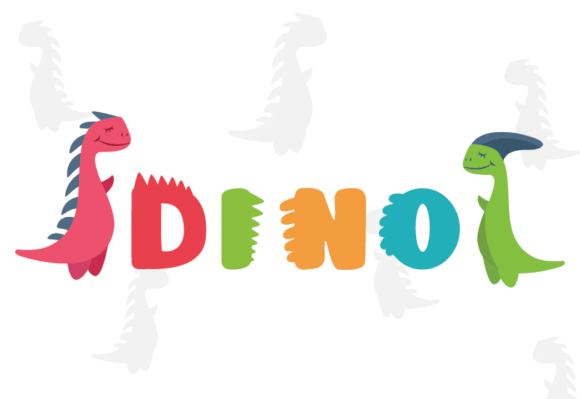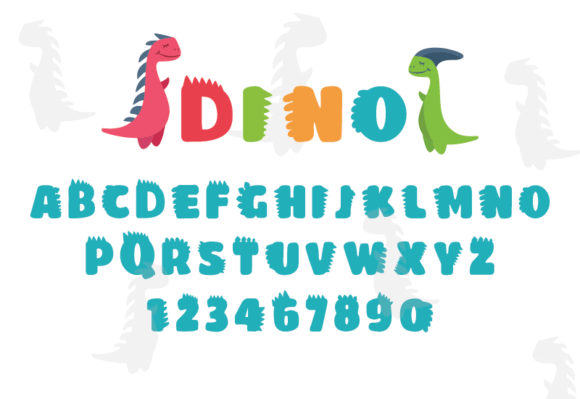
Dino Font: A Prehistoric Typographic Adventure
Imagine a world where typography meets paleontology, and the result is a playful, whimsical font that transports us to a land before time. Welcome to the world of Dino Font, a charming and imaginative creation that brings a touch of prehistoric fun to any design project. In this article, we’ll explore the unique features of Dino Font, its inspiration, and how it can add a roar of creativity to your designs.
The Inspiration Behind Dino Font
Dino Font is a typographic creation that draws inspiration from the fascinating world of dinosaurs. Each letter in the font is designed to resemble a friendly dino, with curves and angles that mimic the gentle sway of a Brachiosaurus’ neck and the formidable grace of a Stegosaurus’ plates. The font’s creator aimed to capture the essence of these prehistoric creatures and infuse it into a playful, yet elegant typographic design.
Design Features of Dino Font
One of the standout features of Dino Font is its unique letterforms, which are designed to evoke the charm of ancient fossils. The letters are crafted with spiky serifs that add a touch of edginess, reminiscent of a T-Rex’s teeth. The curves and swashes in the font are smooth and flowing, much like the gentle movements of a long-necked Sauropod. The font’s design is carefully crafted to ensure that each letter is a tiny, toothless T-Rex waiting to roar with creativity.
Using Dino Font in Design Projects
Dino Font is an excellent choice for designers and crafters looking to add a touch of whimsy and playfulness to their projects. Whether you’re working on a children’s book, a craft project, or a branding campaign, this font is sure to bring a smile to your audience’s faces. Here are a few ideas for using Dino Font in your design projects:
- Children’s Books and Educational Materials: Dino Font is perfect for children’s books, educational materials, and activity sheets. Its playful design will engage young readers and make learning fun.
- Crafting and DIY Projects: Add a touch of prehistoric charm to your crafting and DIY projects, such as signs, banners, and party decorations.
- Branding and Packaging: Use Dino Font to create a fun and memorable brand identity for your business or product.
Tips for Working with Dino Font
To get the most out of Dino Font, here are a few tips to keep in mind:
- Pair it with a simple font: Balance out the playfulness of Dino Font by pairing it with a simple, clean font for body text.
- Experiment with colors: Have fun with colors and try pairing bold, bright hues with Dino Font for a prehistoric look.
- Use it sparingly: While Dino Font is playful and fun, it can be overwhelming if used excessively. Use it sparingly to add a touch of whimsy to your design.
| Font Name | Dino Font |
| Author | GraphicsNinja |
Dino Font is a unique and imaginative typographic creation that brings a touch of prehistoric fun to any design project. Its playful design, inspired by the fascinating world of dinosaurs, makes it an excellent choice for designers and crafters looking to add a touch of whimsy to their work. Whether you’re working on a children’s book, a craft project, or a branding campaign, Dino Font is sure to roar with creativity and bring a smile to your audience’s faces.